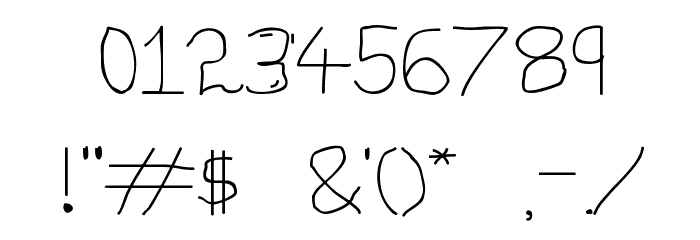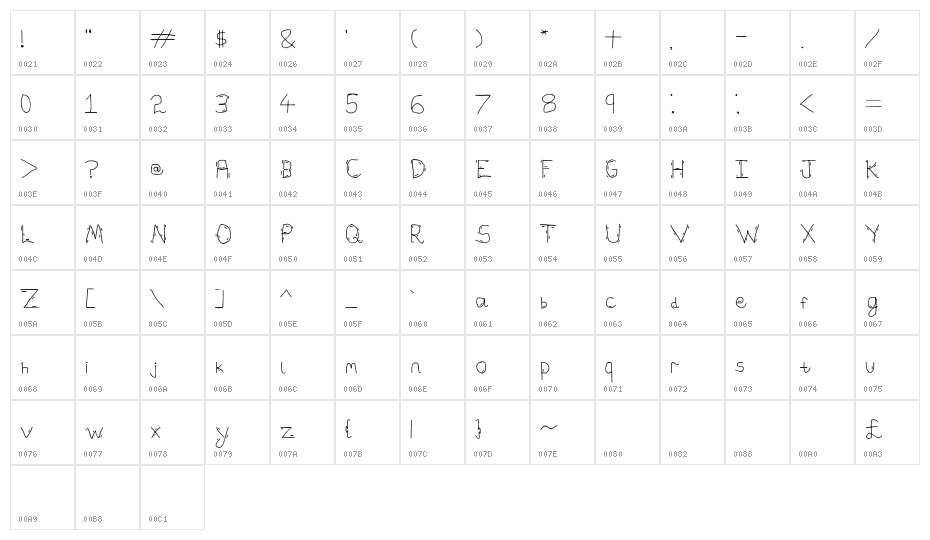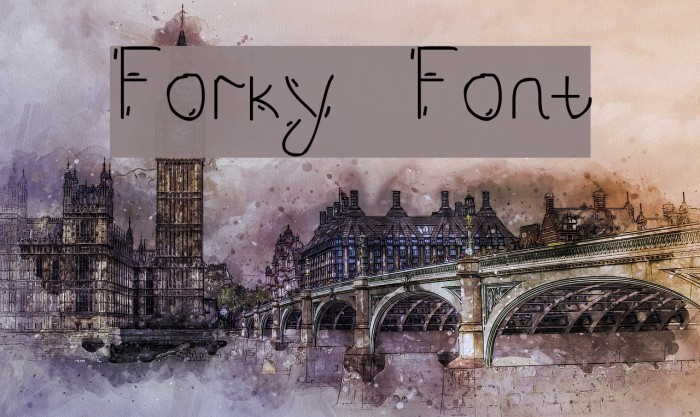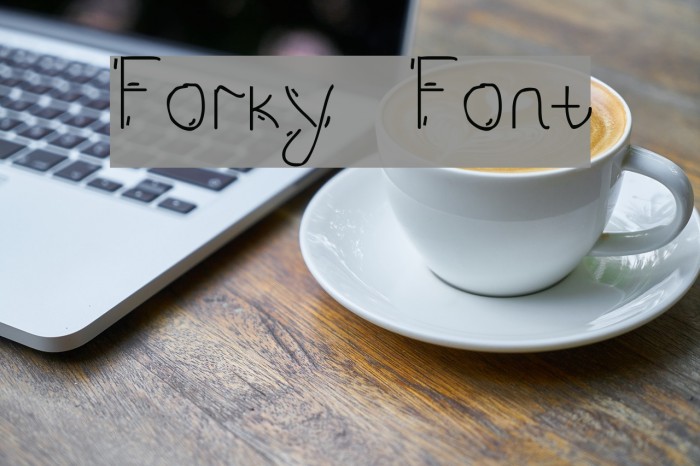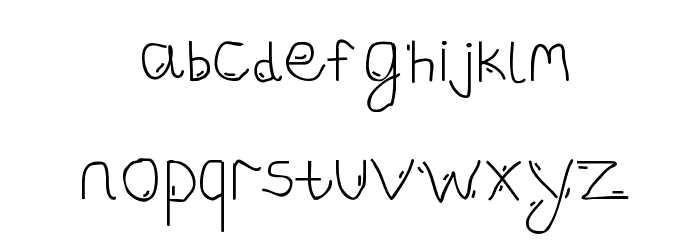
Forky Font
Forky Description
This playful and quirky font features a hand-drawn, doodle-like style that gives it a whimsical and informal appearance. The characters are uneven and irregular, with a sketchy quality that adds to its charm. The uppercase and lowercase letters maintain a consistent style, with rounded edges and a slightly tilted orientation. Numbers and special characters follow the same playful design, making the font suitable for creative and fun projects. Its unique style makes it stand out, perfect for capturing attention in a casual and lighthearted context.
| Proposed Projects | Ideal for children's books, playful branding, casual invitations, and creative posters. |